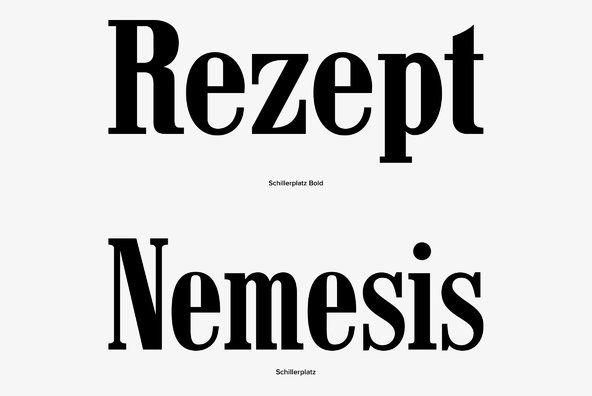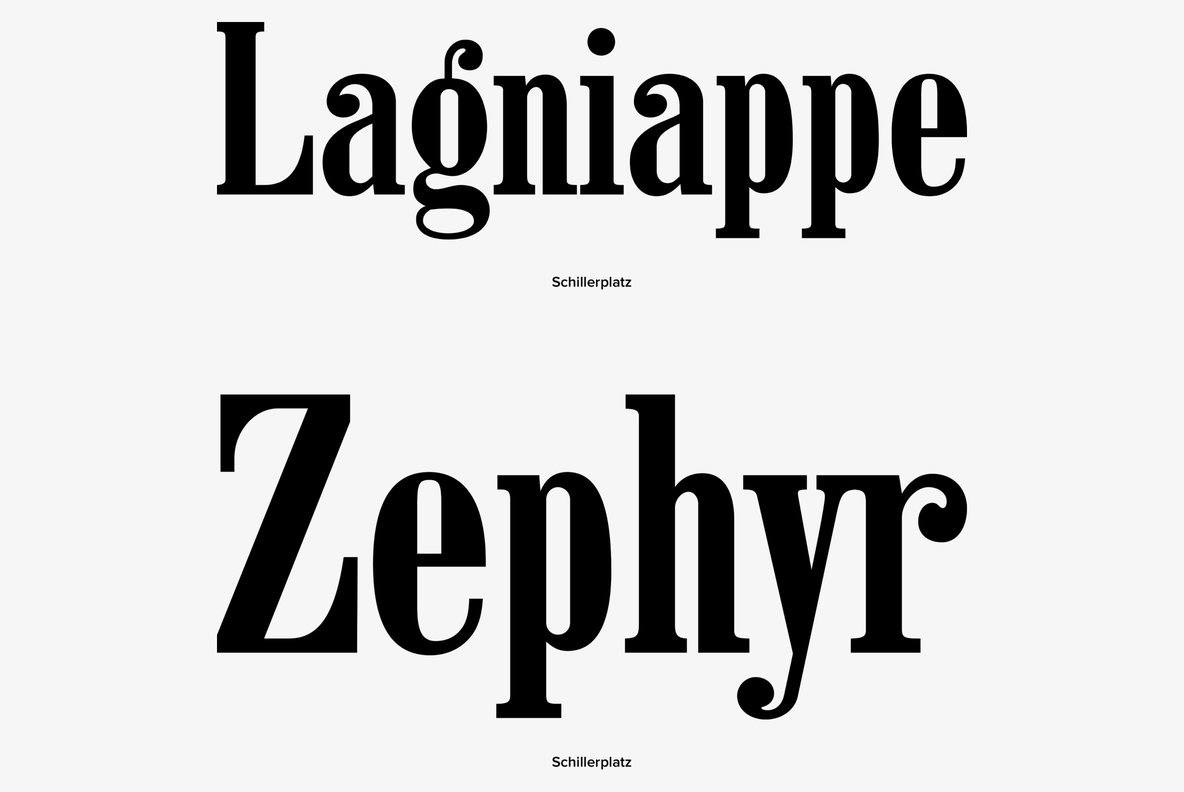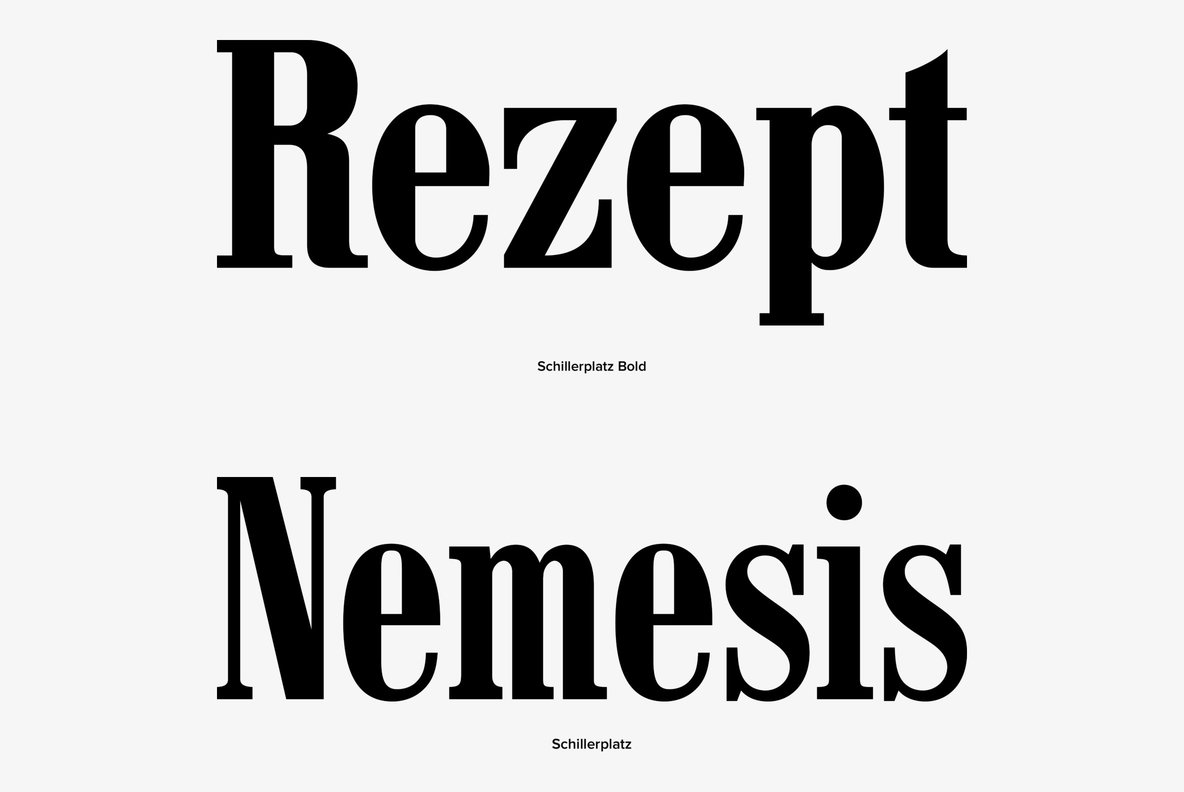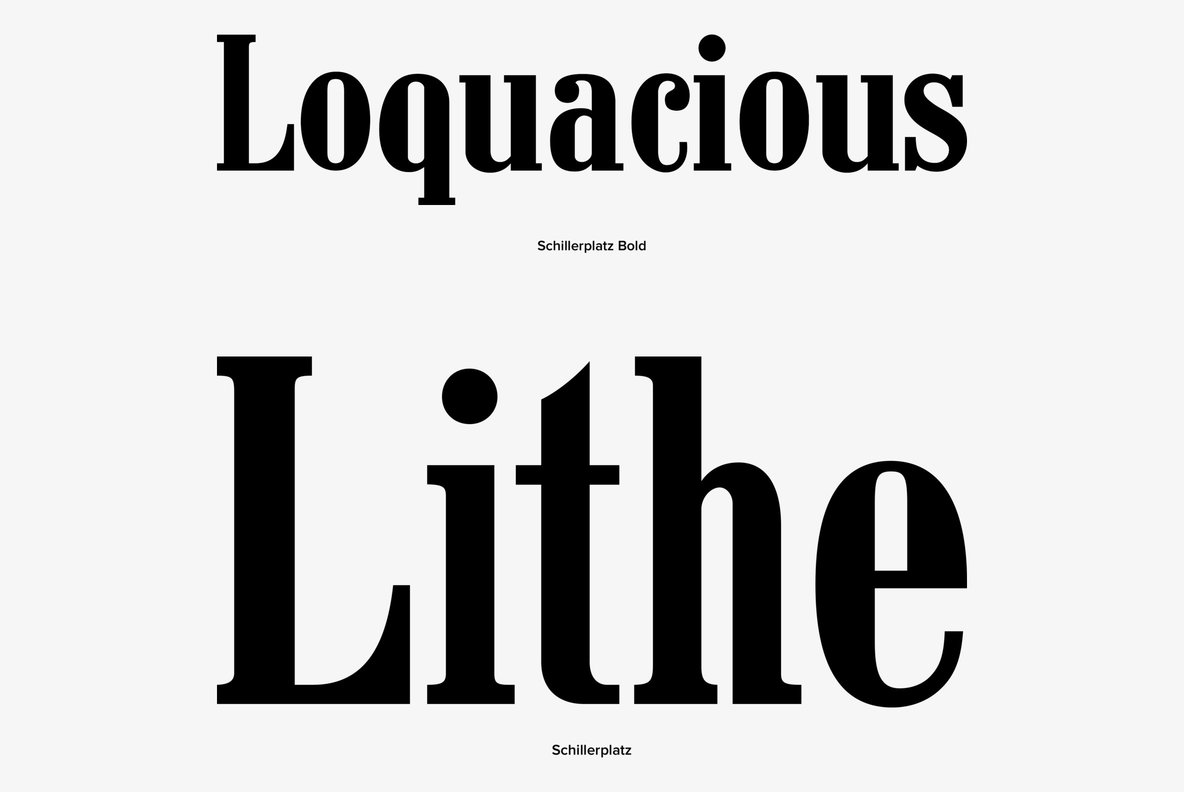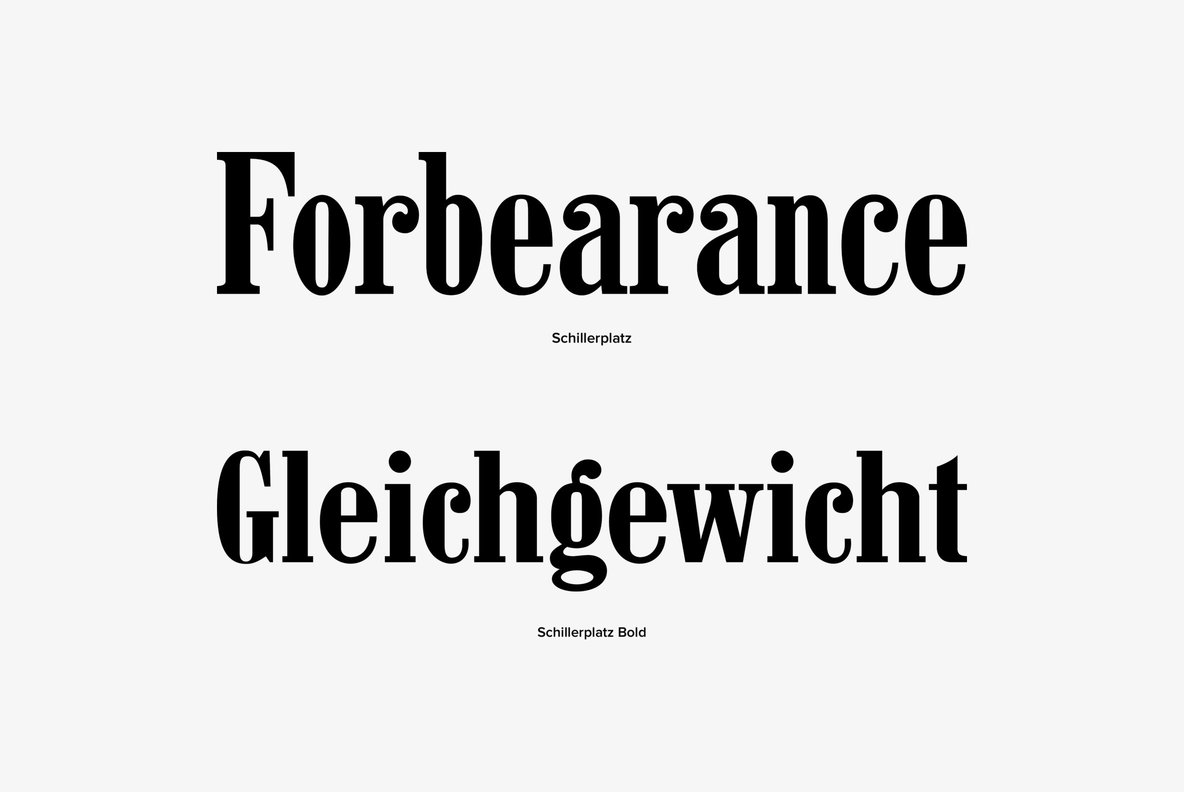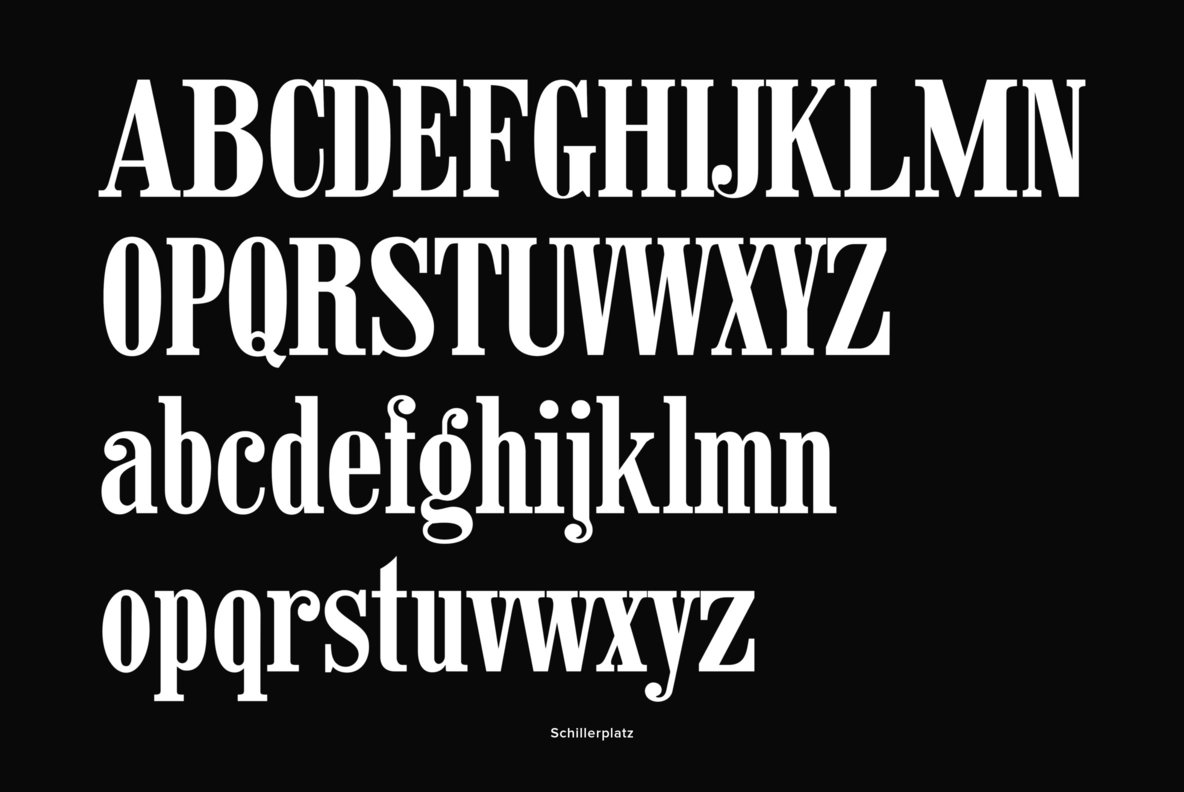
Schillerplatz
Schillerplatz is a fresh, very well done retro styled font, designed by Hellmut G. Bomm in 2008. Schillerplatz is a very European styled design and works great in fashion or retro themed design projects.